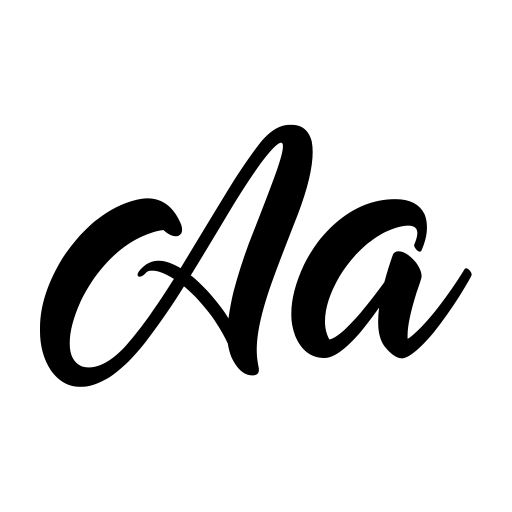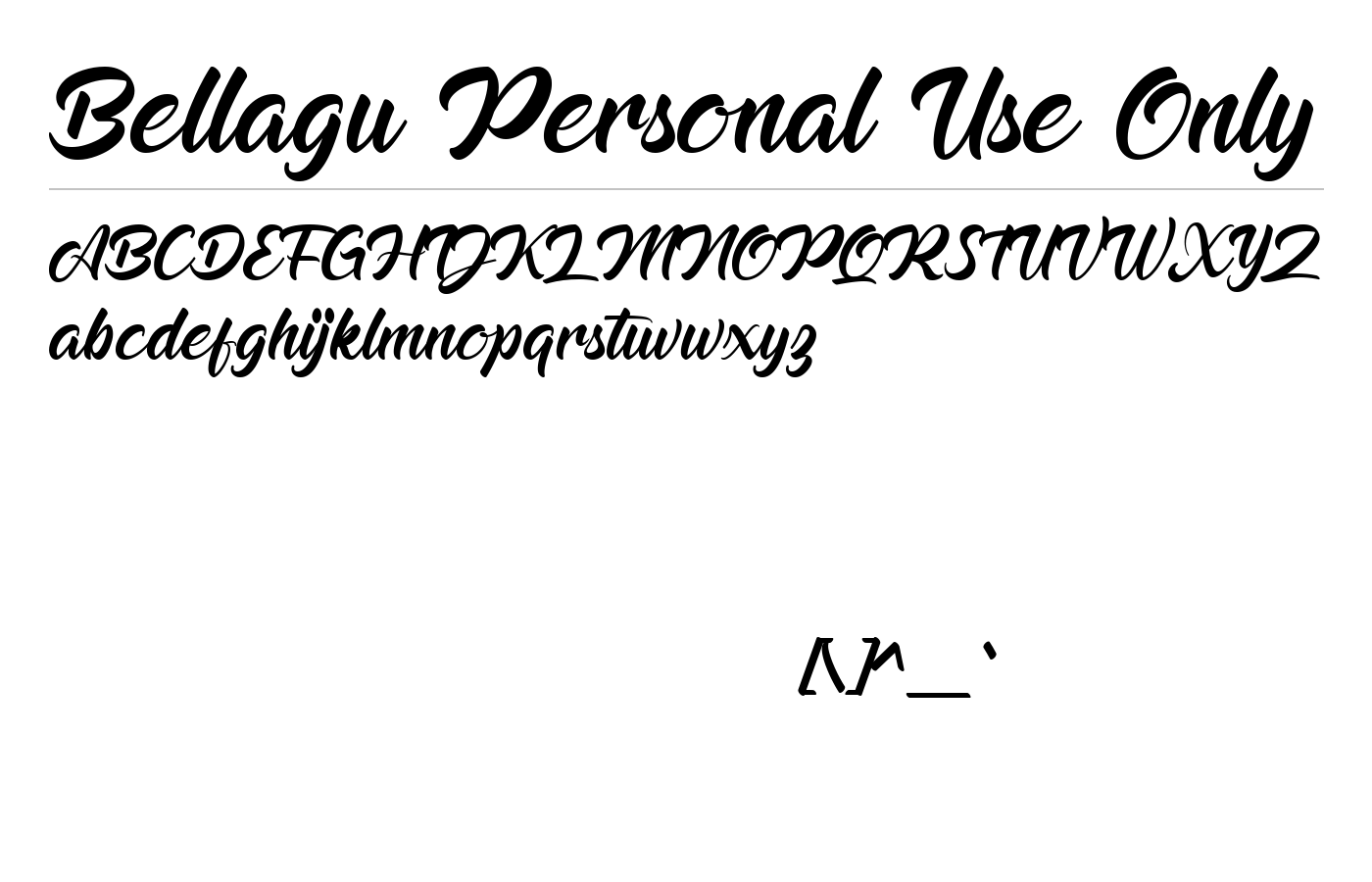
Bellagu Personal Use Only is a bold, script-style font that features smooth, flowing letterforms with a lively, handwritten feel. Its moderately high x-height and consistent stroke weight make it both elegant and legible, perfect for creative projects that need a personal yet polished touch. This font works especially well for invitations, branding, and headlines where a stylish, friendly, and dynamic appearance is desired.
Bellagu Personal Use Only Font
About Bellagu Personal Use Only Font
| Font family | Bellagu Personal Use Only Font |
| Designer | Ahmad Rofingi |